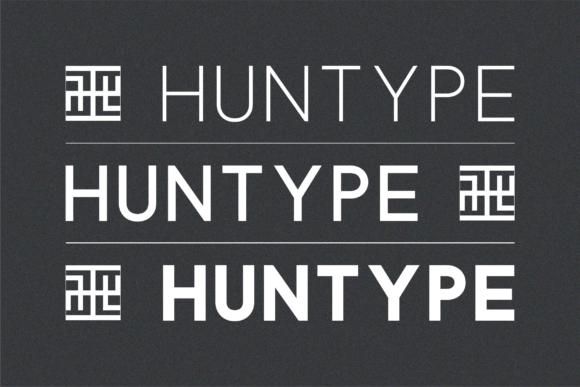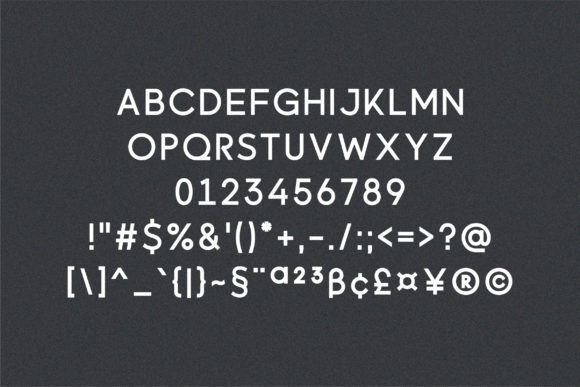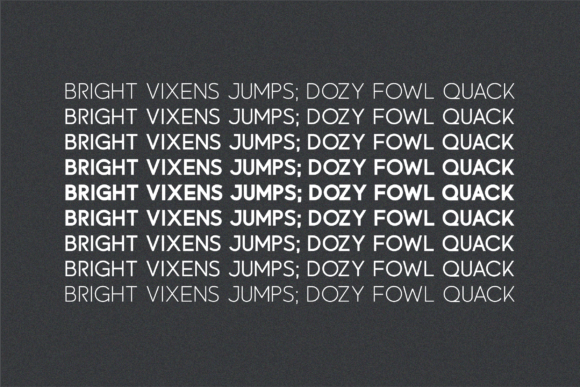
Introduction to Grotesko Font
Have you ever stared at a blank page, trying to bring your creative project to life? The cursor blinks, taunting you, as the words refuse to flow. But then, a spark of inspiration strikes, and the perfect font pops into your mind. For designers, the right font can make all the difference, elevating a design from good to great. And one such font that has been gaining popularity is the Grotesko Font.
With its smooth and clean lines, the Grotesko Font works beautifully for logos, branding, and web headings. Its high quality design makes it a valuable resource for designers, who can download it for free and use it to create stunning visuals. Whether you’re working on a personal project or a commercial design, the Grotesko Font is a versatile design resource that can add a touch of elegance to your work.
Key Features of Grotesko Font
- High-quality design with a modern and minimalist aesthetic, ideal for creative projects.
- Character set includes a wide range of glyphs, including Latin, Cyrillic, and Greek alphabets.
- Unique characteristic: Grotesko Font features a bold and geometric sans-serif design, perfect for adding a touch of modernity to any creative project.
Honest Review: Grotesko Font
I recently had the chance to work with the Grotesko Font, and I must say it’s been a great addition to my design resource arsenal. One of the standout features of this font is its high quality and sleek design, making it perfect for any creative project that requires a modern touch. ✨
Here are some of the key features that I liked about the Grotesko Font:
- Sleek and modern design
- High quality font
Of course, like any font, the Grotesko Font has its limitations. One thing I noticed is that it may not be as versatile as some other fonts, and it may not be suitable for all types of design projects. ⚠️
Overall, I’m really impressed with the Grotesko Font, and I would definitely recommend it to designers looking for a high-quality, modern font for their creative projects.
Tips for Getting the Most Out of Grotesko Font
For the best results, use the Grotesko Font in high-quality designs with transparent backgrounds. This will allow the font to stand out and create a clean, modern look. You can also experiment with different font sizes, colors, and styles to create a unique design resource for your creative project.
Common Use Cases for Grotesko Font
The Grotesko Font is a versatile design resource that can be used in a variety of creative projects, including logos, branding, and typography-based designs. Its high-quality design and transparent background make it an ideal choice for designers who want to create professional-looking designs without the hassle of complicated font installation.
Alternatives to Grotesko Font
Monserrat is a high-quality sans-serif font perfect for creative projects that require a clean and modern look. It’s a great choice for titles, headings, and body text. When to use: Websites, magazines, and social media platforms. Compared to Grotesko Font, Montserrat has a more geometric feel and is highly legible even at small sizes.
Open Sans is a free download font that’s ideal for designers looking for a versatile and high-quality design resource. It’s a great choice for body text, and its transparent background makes it perfect for overlaying on images. When to use: Websites, mobile apps, and presentations. Compared to Grotesko Font, Open Sans has a more rounded feel and is highly readable in various contexts.